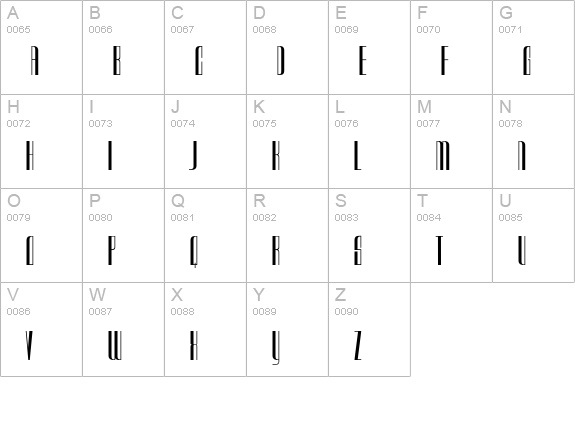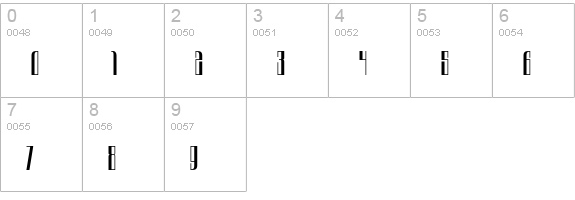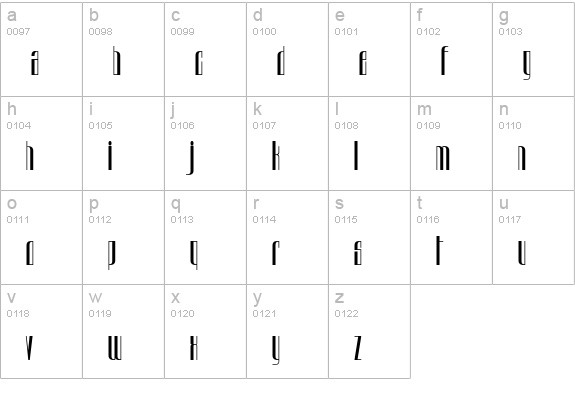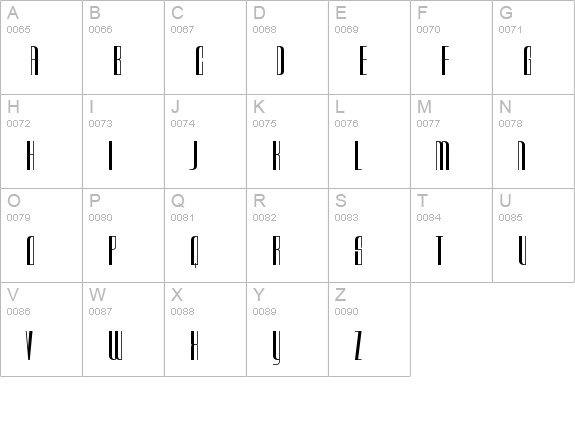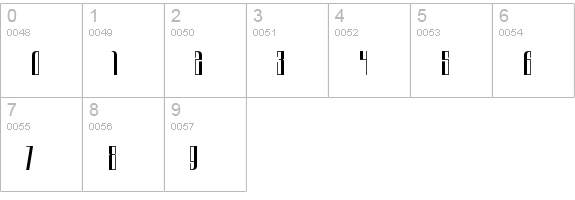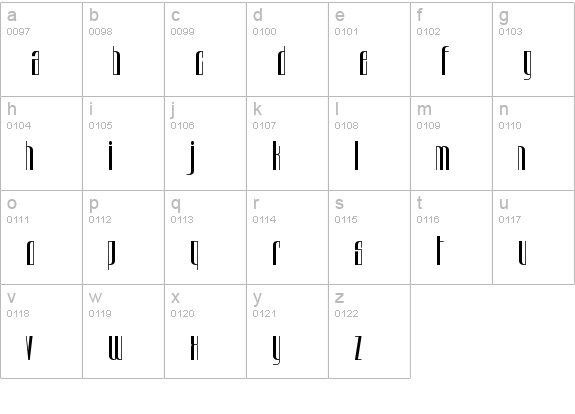
Urkelian Font Details
Introducing the magnificent Urkelian font - a true embodiment of elegance and sophistication. With its captivating curves and intricate details, this font is sure to leave a lasting impression on any design project. Whether you're creating a stunning logo, designing a beautiful wedding invitation, or simply adding a touch of class to your website, Urkelian is the perfect choice. But what sets Urkelian apart from the rest? Not only does it exude creativity and style, but it is also completely free! That's right, you heard it correctly - this remarkable font is available to download at absolutely no cost. FontsMarket.com is proud to offer this exceptional typeface to the design community, allowing you to unleash your creativity without any financial constraints. Urkelian is a versatile font that can effortlessly adapt to any project. Its clean lines and balanced proportions make it suitable for both print and digital applications, ensuring a seamless integration into your designs. Whether you're aiming for a modern and minimalist look or a more traditional and timeless aesthetic, Urkelian has the versatility to bring your vision to life. Designed with meticulous attention to detail, Urkelian offers a wide range of characters, including uppercase and lowercase letters, numerals, punctuation marks, and special symbols. This comprehensive character set ensures that you have all the tools you need to create stunning typography that truly stands out. So don't miss out on the opportunity to enhance your designs with this exceptional font. Download Urkelian for free today at FontsMarket.com and unlock a world of endless possibilities. Let your creativity soar as you explore the countless ways in which this font can elevate your designs to new heights. Embrace the beauty and freedom of Urkelian font and watch your creations come to life with every stroke of the keyboard.